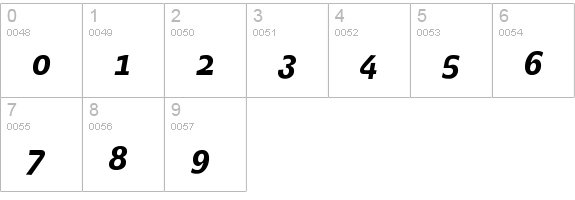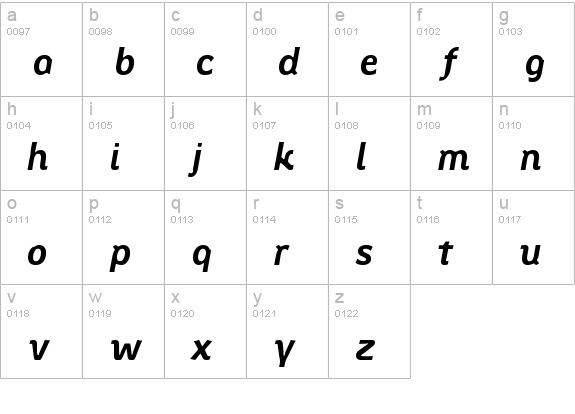
SpotkaBold Italic Font Details
SpotkaBold Italic is a distinctive, italic variant in the SpotkaBold typeface family \xE2\x80\x94 well suited to design and typography projects.
SpotkaBold Italic font is a stylish and modern typeface that exudes confidence and creativity. With its bold strokes and elegant curves, this font is perfect for making a statement in your designs. The italicized style adds a touch of sophistication and flair, making it ideal for projects that require a touch of drama. What sets SpotkaBold Italic font apart is that it is not only visually striking but also completely free to download. Yes, you read that right - this stunning font can be freely obtained at FontsMarket.com, allowing you to elevate your designs without breaking the bank. Whether you're working on branding materials, posters, or any other creative project, SpotkaBold Italic font is sure to make a lasting impression. Download it today and unleash your creativity with this versatile and eye-catching typeface.